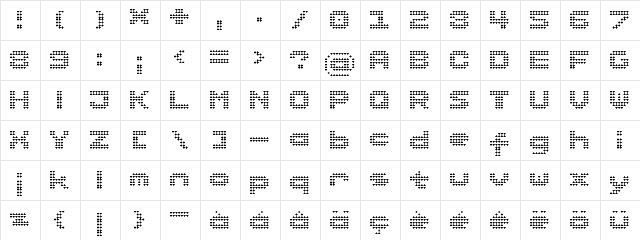
cruzifox Regular
Design Context for cruzifox Typeface
cruzifox is a composed and adaptable typeface that performs quietly and consistently across a wide range of design contexts.
Pro Tip: Pair cruzifox with a font of contrasting weight or personality to build a more expressive typographic hierarchy.